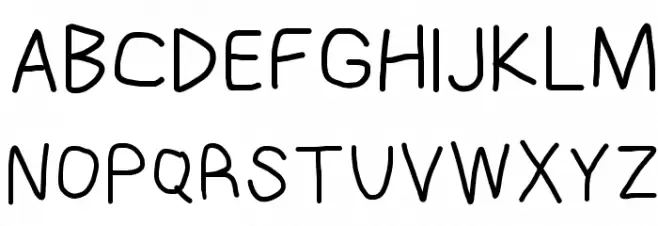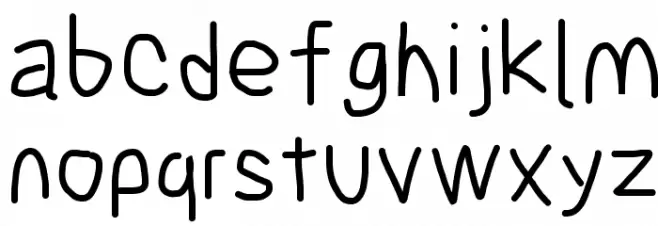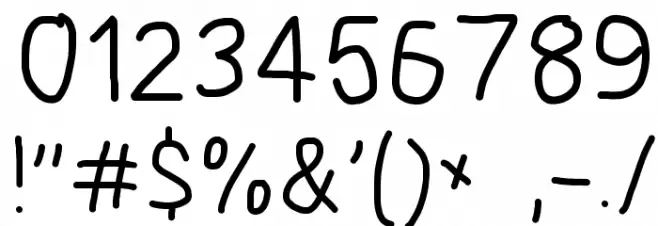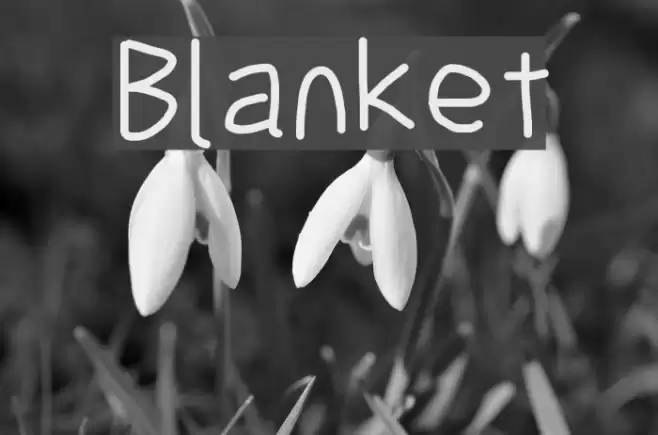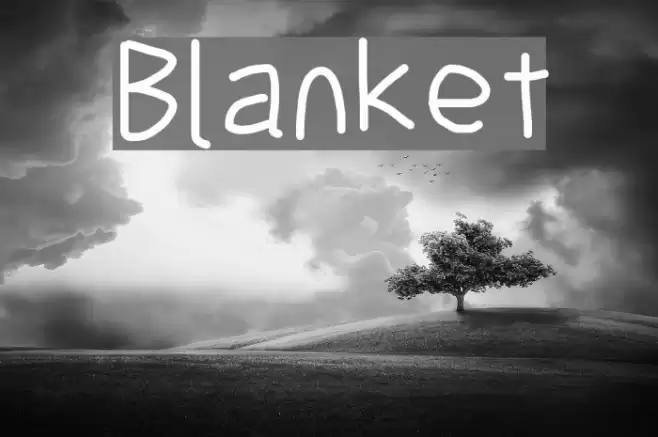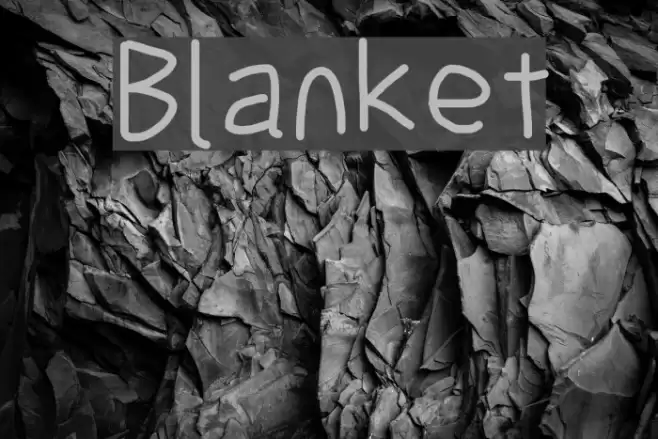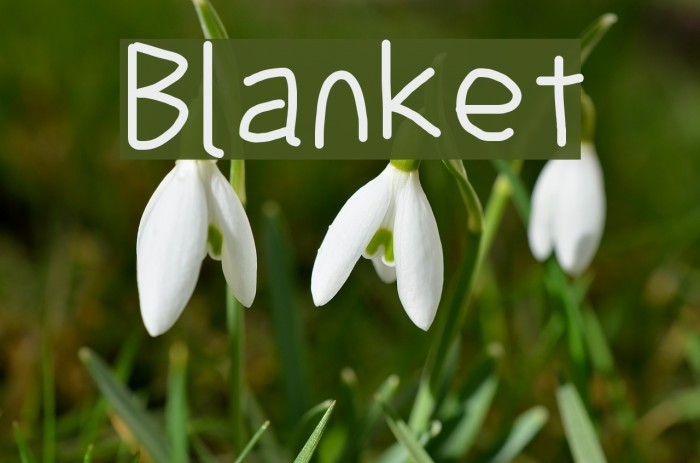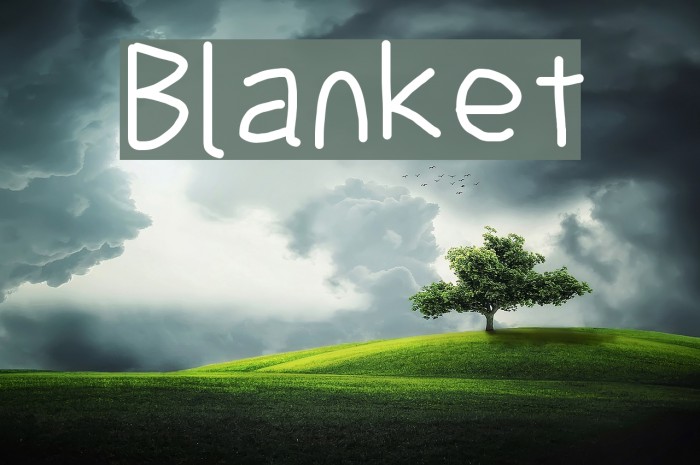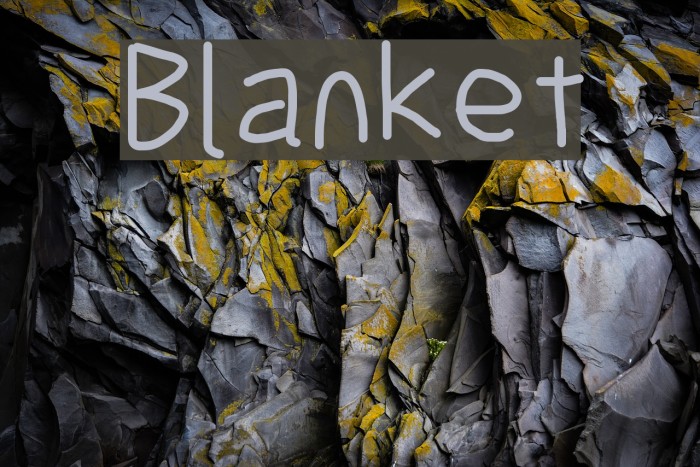
Blanket
This font features a playful and casual handwritten style, characterized by its rounded and slightly irregular letterforms. The uppercase and lowercase letters maintain a consistent flow, with a slight tilt that adds to its informal charm. The numerals are clear and legible, matching the overall aesthetic of the alphabet. Special characters are well-integrated, maintaining the same playful style. The font's simplicity and warmth make it approachable and friendly, suitable for projects that require a personal touch.
A playful, casual handwritten font with rounded, slightly irregular letterforms.
- Proposed Projects: Ideal for children's books, greeting cards, personal blogs, and informal branding projects.
- Overall Style: Casual, Playful
- Use Case: Headlines, Informal text, Personal projects